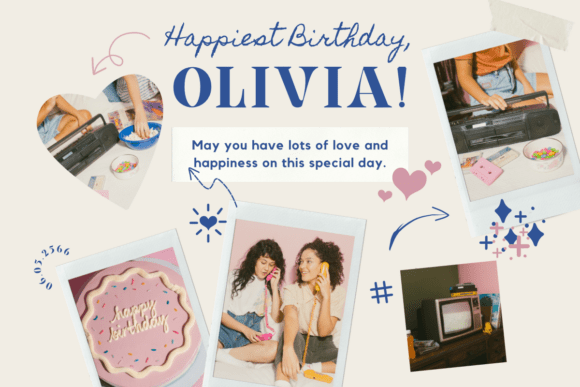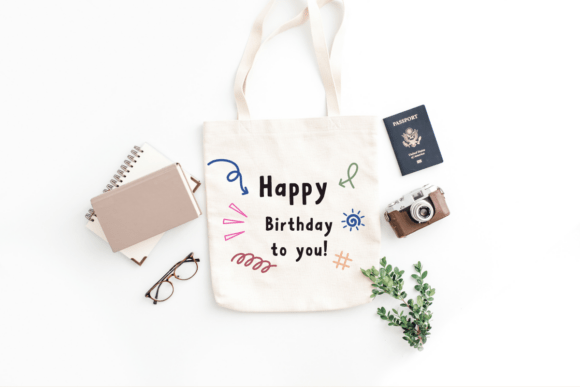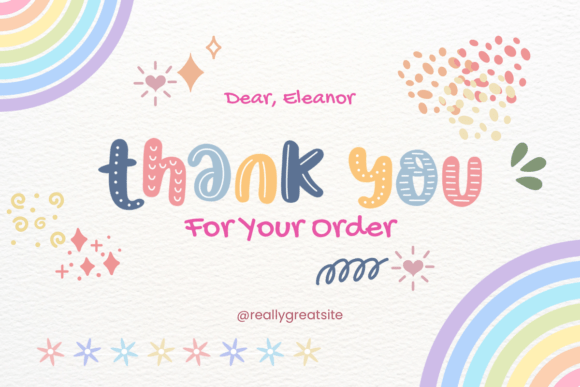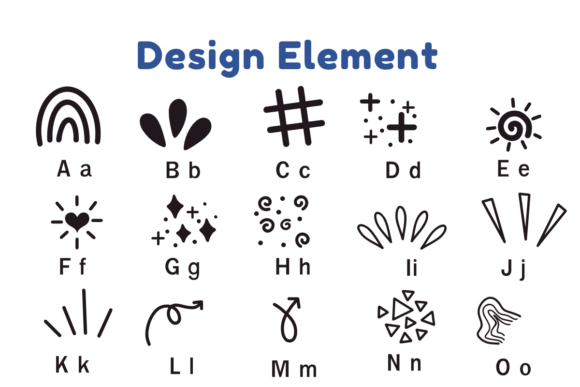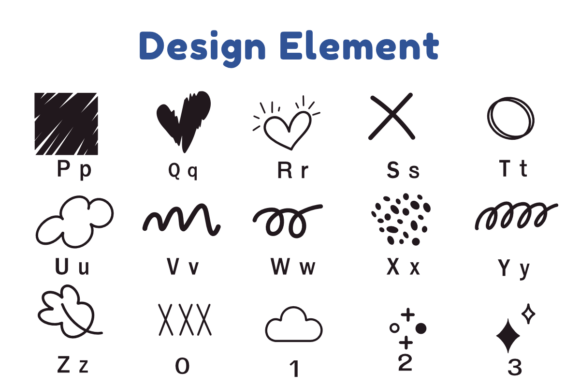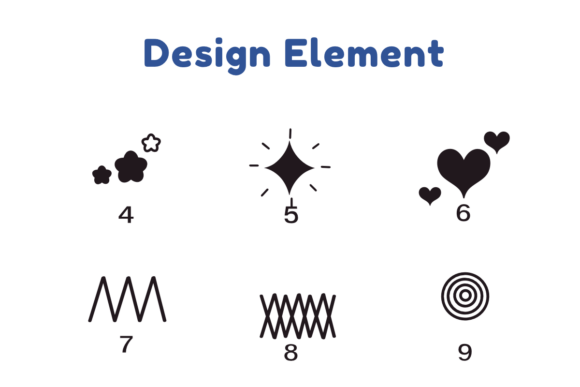
Unlock Creative Possibilities with Design Element Font
Are you a designer, crafter, or DIY enthusiast looking for a unique and versatile font to elevate your creative projects? Look no further than Design Element, a dingbats font with an abstract theme that’s perfect for adding a touch of personality to your designs. In this article, we’ll explore the features and benefits of Design Element, and show you how it can enhance your wedding invitations, DIY projects, crafts, decorations, logos, and more.
What is Design Element Font?
Design Element is a dingbats font that features a collection of abstract shapes and symbols, perfect for adding a creative and artistic touch to your designs. Unlike traditional fonts, dingbats fonts like Design Element offer a unique set of characters that can be used to convey a specific theme or style. With Design Element, you can add a touch of sophistication and elegance to your designs, or create bold and playful statements.
Key Features of Design Element Font
- Abstract Theme: Design Element features an abstract theme that’s perfect for adding a touch of modernity and creativity to your designs.
- Unique Characters: This font includes a wide range of unique characters, including shapes, symbols, and icons that can be used to create visually appealing designs.
- Scalable: Design Element is a scalable font, which means you can use it for a variety of projects, from small crafts to large-scale designs.
- Easily Editable: With Design Element, you can easily edit and customize your designs using your favorite design software.
Creative Ways to Use Design Element Font
Design Element is a versatile font that can be used for a wide range of creative projects. Here are some ideas to get you started:
- Wedding Invitations: Add a touch of elegance and sophistication to your wedding invitations with Design Element. Use the font to create custom illustrations, borders, and other design elements.
- DIY Projects: Design Element is perfect for DIY enthusiasts who want to add a personal touch to their projects. Use the font to create custom labels, signs, and other decorative elements.
- Crafts: Take your crafts to the next level with Design Element. Use the font to create custom designs for scrapbooking, card making, and other paper crafts.
- Decorations: Use Design Element to create custom decorations for your home or office. Design custom wall art, garlands, and other decorative elements.
- Logos: Design Element can also be used to create custom logos for your business or brand. Use the font to create a unique and memorable logo that sets you apart.
Tips for Using Design Element Font
Here are some tips for getting the most out of Design Element:
- Experiment with Different Sizes: Don’t be afraid to experiment with different sizes and scales when using Design Element. The font looks great in large and small sizes.
- Combine with Other Fonts: Design Element looks great when combined with other fonts. Try pairing it with a traditional font for a unique contrast.
- Use as a Design Element: Use Design Element as a design element, rather than as a traditional font. This will help you to create visually appealing designs that stand out.
Design Element is a versatile and creative font that’s perfect for designers, crafters, and DIY enthusiasts. With its abstract theme and unique characters, this font can add a touch of personality and sophistication to your designs. Whether you’re creating wedding invitations, DIY projects, crafts, decorations, or logos, Design Element is a great choice. So why not give it a try and see what creative possibilities you can unlock?